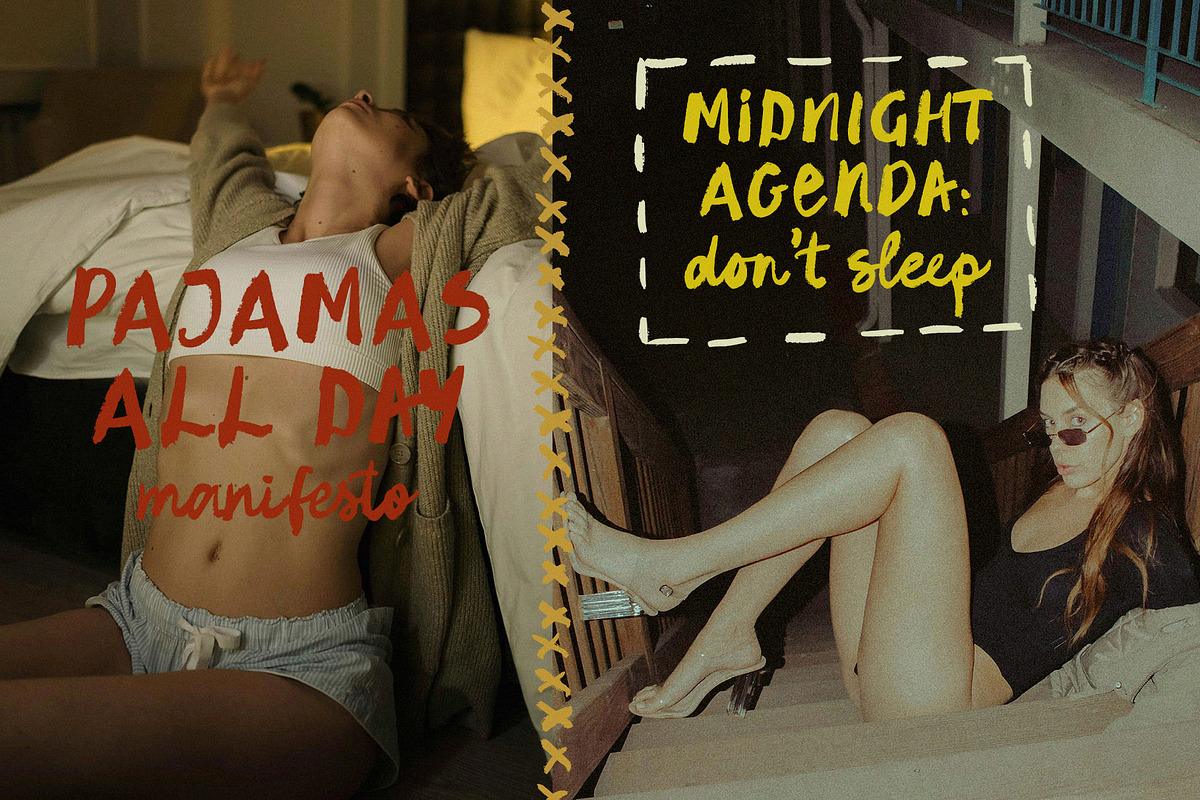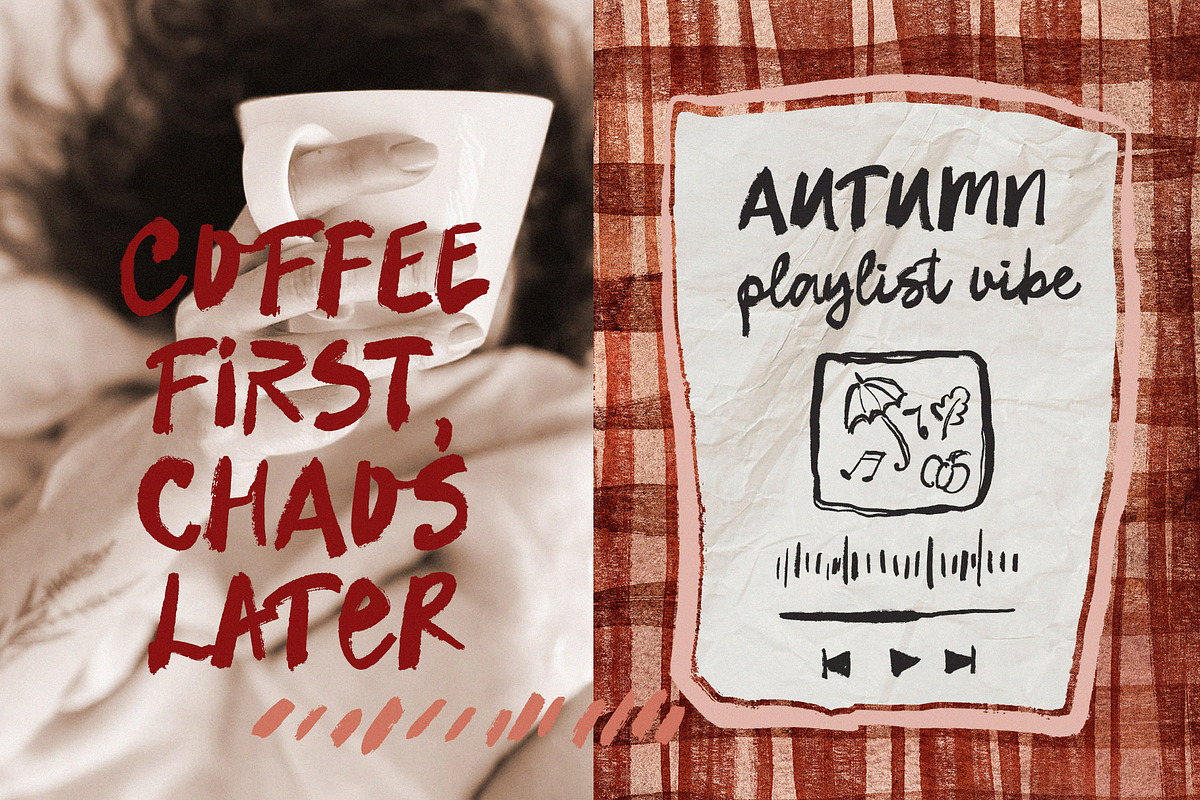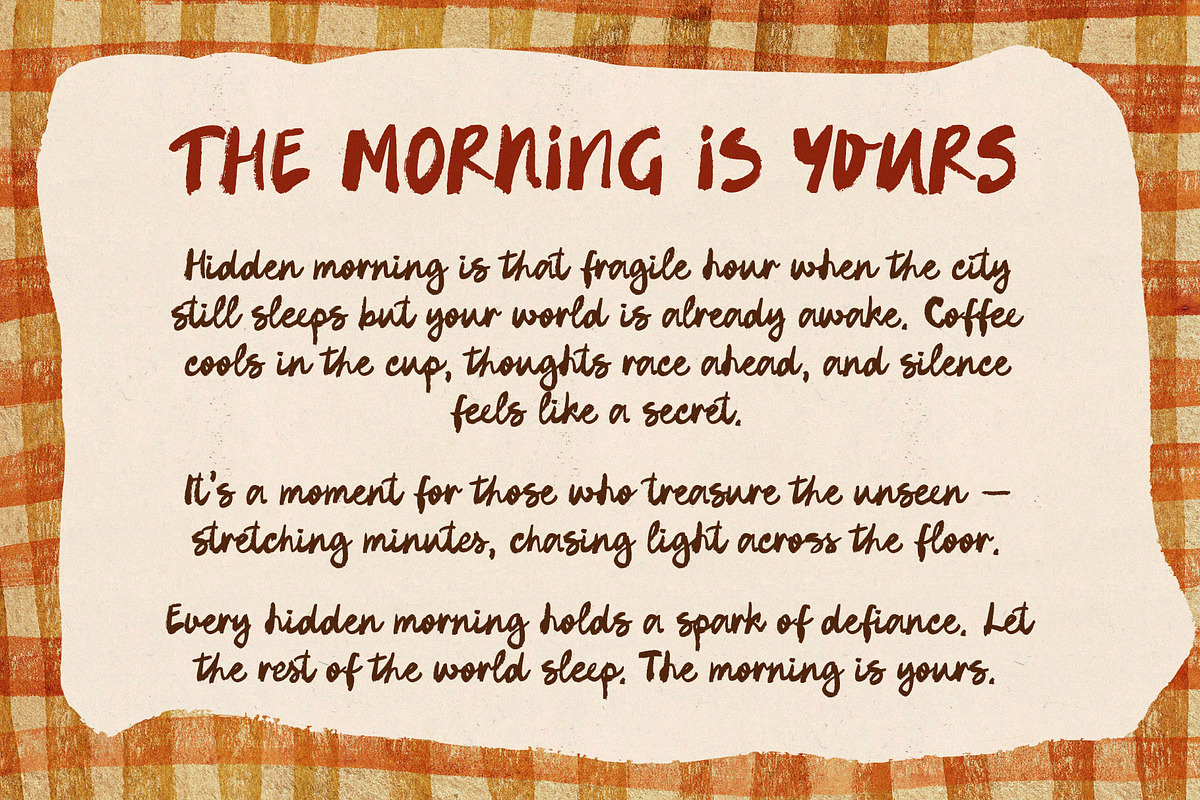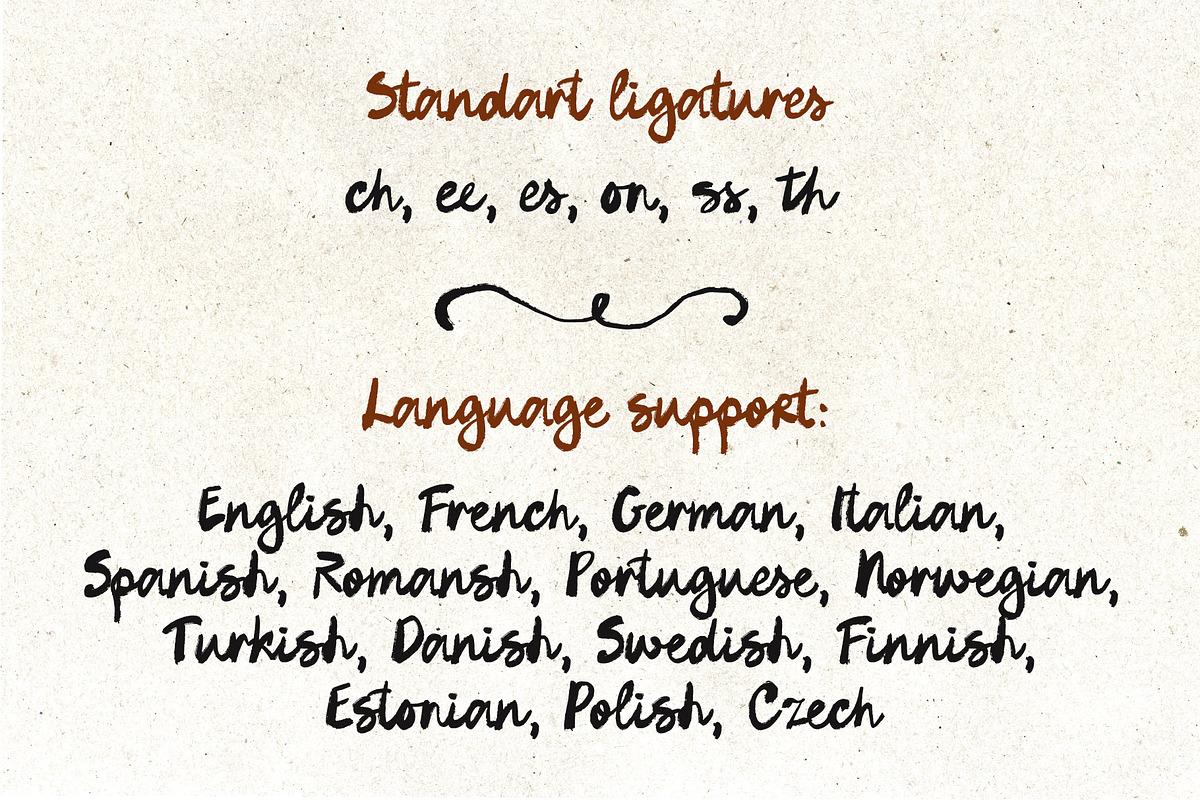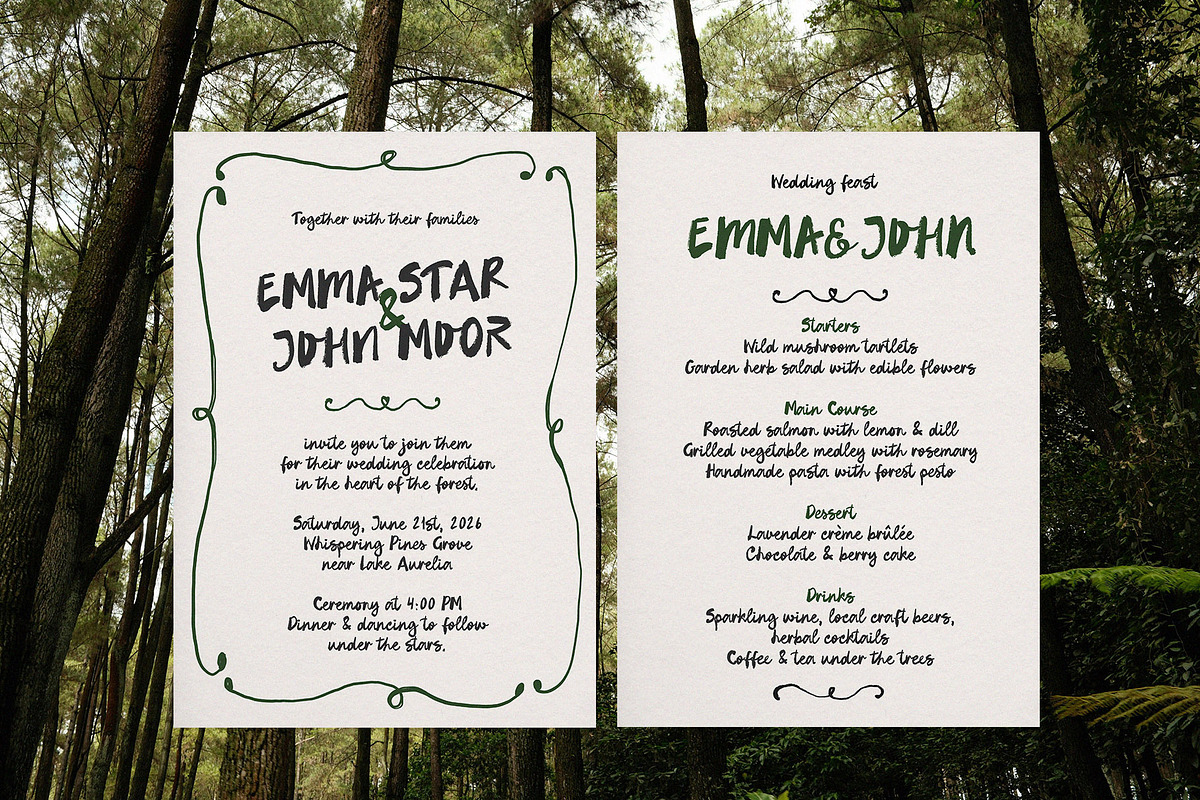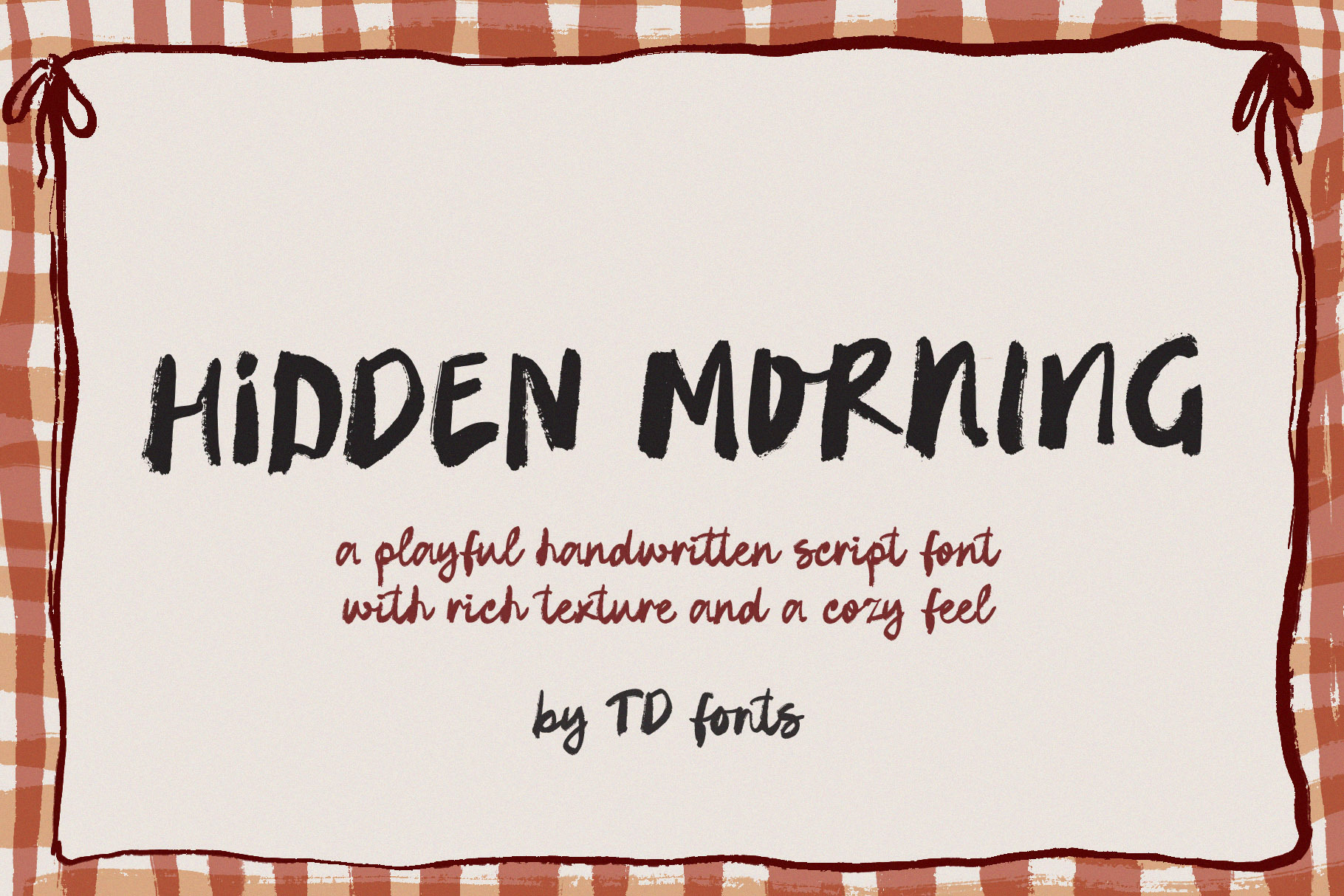
Bold brush script font handwritten
Hidden Morning is a textured handwritten brush script font with bold personality, raw energy, and a touch of mystery. Each letter feels as if it was written with half-dry ink — fast, fearless, and full of authentic character.
The uppercase letters are the headline-makers: large, high-pressure brush strokes with a bristle-textured, dry brush quality, each character leaning in its own direction — some upright, some forward, some slightly tilted back. The result is a spontaneous, expressive energy that makes every word feel like it was captured mid-thought. A set of alternative uppercase letters is included for even more variation and uniqueness.
The lowercase letters bring a completely different voice: connected script with a playful, slightly ornate quality, enhanced with standard ligatures (ch, ee, es, on, ss, th) that make the flow look organic and natural. Together, uppercase and lowercase create a stylish contrast — bold and soft, raw and charming — like two different voices that somehow harmonize effortlessly.
At display scale, Hidden Morning is bold enough to anchor a poster, expressive enough for editorial headlines, and textured enough to make product labels and packaging feel genuinely handmade.
Bold headlines, poster titles & editorial design
Graphic design, branding & logo lettering
Packaging, product labels & artisan branding
Social media graphics, quotes & website headers
Posters, prints & creative projects
Wedding stationery & event invitations
Font features:
Textured brush script with authentic dry brush, bristle-edge quality
High-pressure bold brush strokes — raw energy, imperfect and deeply expressive
Uppercase: large, spontaneous letterforms with unstable directional slant for maximum impact
Lowercase: connected playful script with ornate details and natural ligature flow
Standard ligatures: ch, ee, es, on, ss, th for organic, seamless lettering
Alternative uppercase set included — more variation, more uniqueness
Display-optimised — best at headline sizes, from 36pt upward
The aesthetic: Hidden Morning is the font for projects that need to feel bold, stylish, and a little untamed. If you're designing a striking poster headline, artisan packaging, editorial cover, or social media graphic where the typography needs raw energy and authentic texture — Hidden Morning is the font to make your message unforgettable.